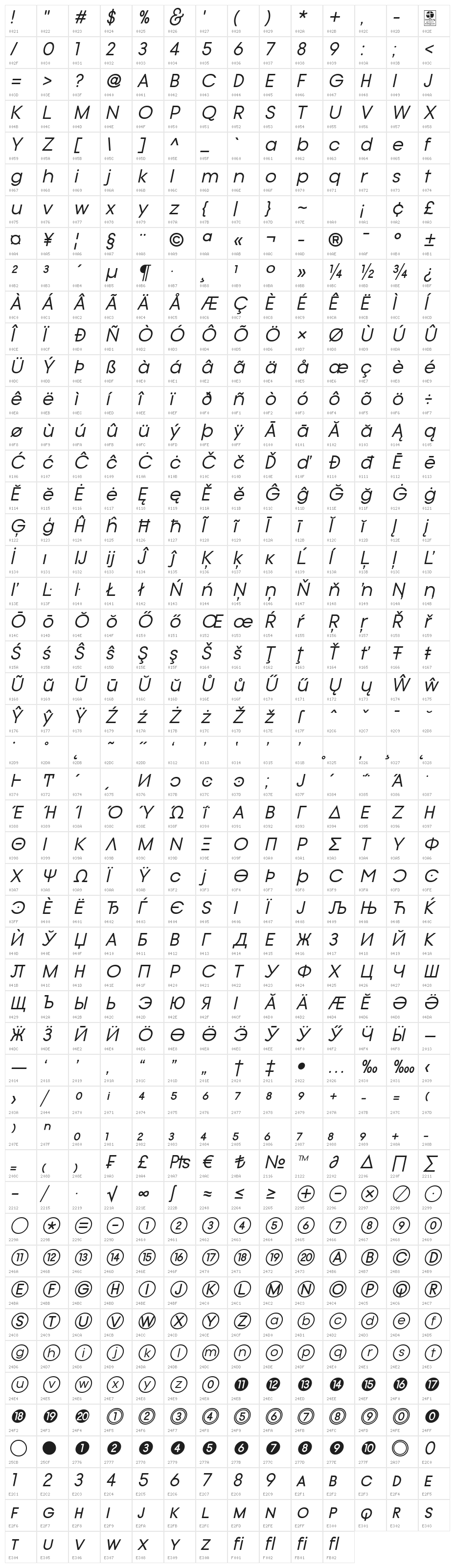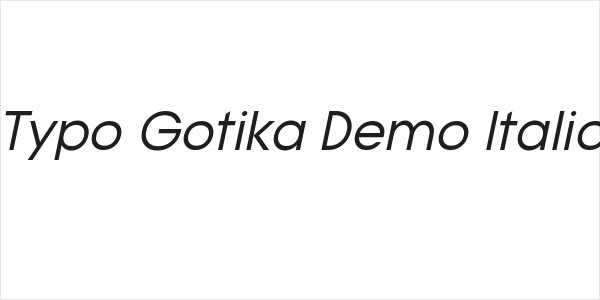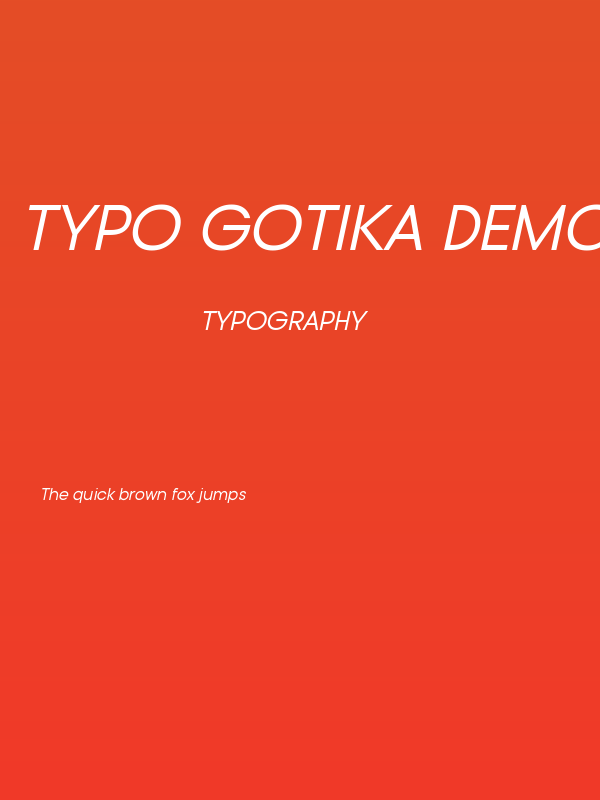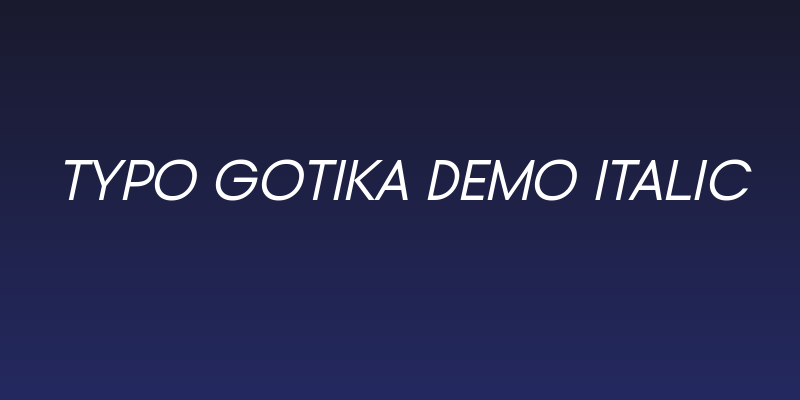
Typo Gotika Demo Italic Font
Typo Gotika Demo Italic Description
This font features a sleek and modern design with a distinct italic slant, giving it a dynamic and forward-moving appearance. The characters are crafted with clean lines and a uniform stroke width, contributing to a minimalist aesthetic. The uppercase letters are bold and commanding, while the lowercase letters maintain a consistent flow, enhancing readability. The numerals are clear and well-proportioned, making them suitable for various applications. Special characters are included, maintaining the font's cohesive style. Overall, this font exudes a contemporary and professional vibe, making it versatile for multiple design needs.